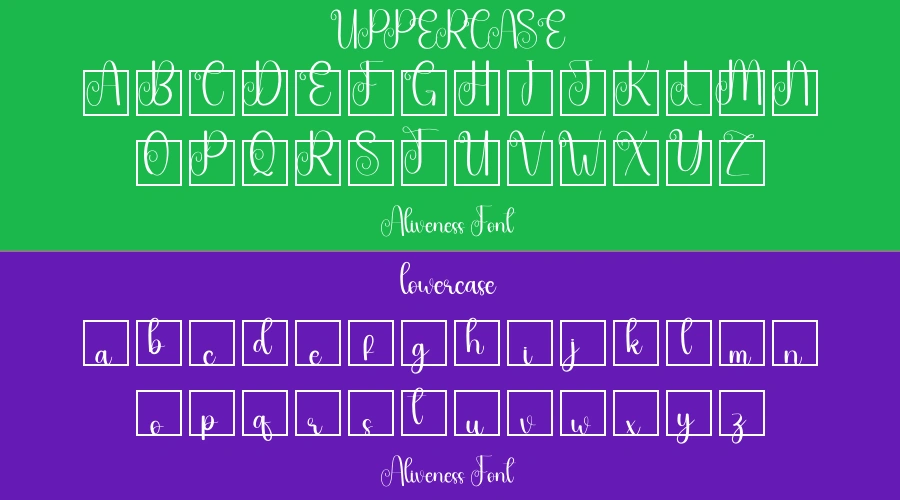
About Aliveness Font
Aliveness Font stands out for its distinctive combination of measured spacing and emotional appeal. Ideal for marketing materials, it provides the precision and academic acceptance that professional projects demand. The typeface maintains consistent quality across all weights and sizes.
Key features include refined flourishes and practical proportional figures, enhancing typographic expression. In corporate communications applications, Aliveness Font demonstrates exceptional headline impact. The character width and creative versatility contribute to its distinctive character and professional appeal.